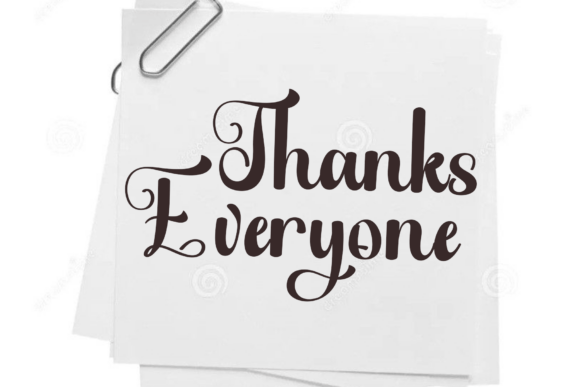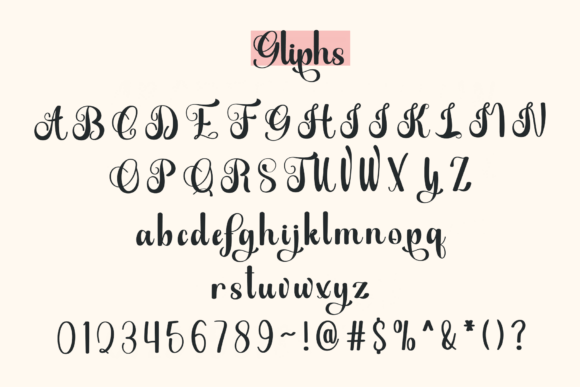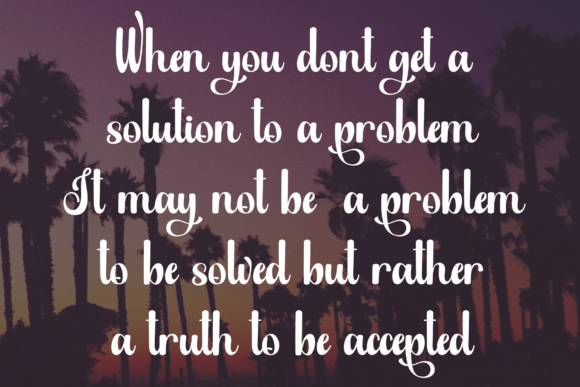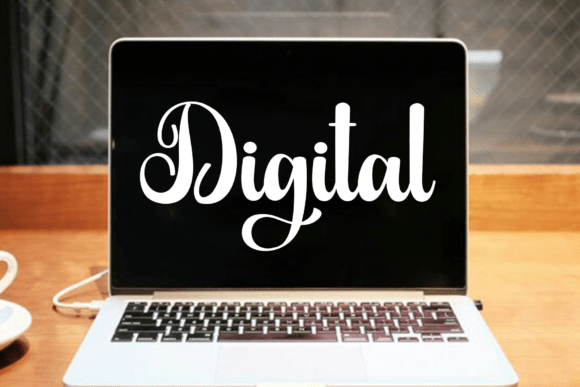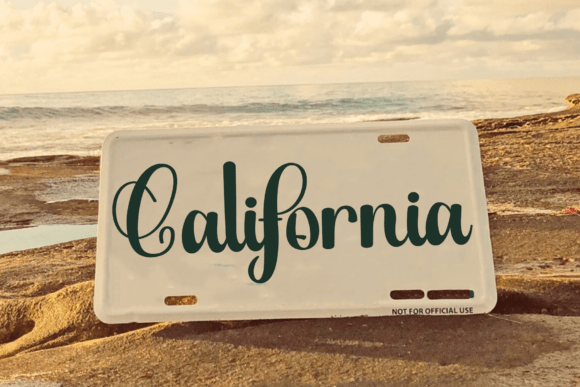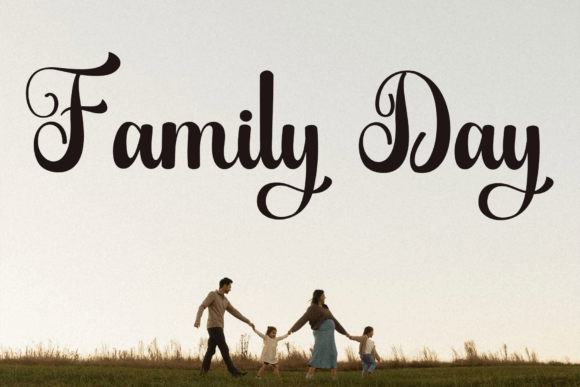
The Apollo Calligraphy Font: A Warm and Playful Addition to Your Design Toolkit
I’ll never forget the time I was working on a wedding invitation project, and my client asked for a font that was both elegant and approachable. I scoured the internet, trying out font after font, but nothing seemed quite right. That was until I stumbled upon Apollo Calligraphy. Its charming, hand-drawn aesthetic and warm, playful strokes instantly won me over. I knew right then and there that it was the perfect fit for my project.
A Personal Review of Apollo Calligraphy
- ✨ The casual, creative vibe that makes it perfect for personal projects, invitations, and social media graphics
- 🌈 The font’s charming, hand-drawn aesthetic, which adds a fun and unique touch to any design
- 👍 The relaxed and approachable feel that makes it perfect for designs that need a friendly tone
While Apollo Calligraphy is an amazing font, it’s not without its quirks. For example:
- ⚠️ Some users may find that the font’s casual, hand-drawn aesthetic isn’t suitable for more formal designs
- 🤔 The font may not be the best choice for very small text sizes, as some of the details may get lost
The Story Behind Apollo Calligraphy
Apollo Calligraphy was designed with the goal of creating a font that was both elegant and approachable. The designer wanted to create a font that would be perfect for personal projects, invitations, and social media graphics. The result is a font that’s warm, playful, and full of character.
Q: What is Apollo Calligraphy?
A: Apollo Calligraphy is a casual and creative font that exudes warmth and friendliness. Its round, playful strokes create a relaxed and approachable feel, perfect for personal projects, invitations, and social media graphics.
Q: Is Apollo Calligraphy easy to read?
A: Yes, Apollo Calligraphy is designed to be easy to read, even at small text sizes. Its clear and playful strokes make it perfect for designs that need a friendly tone.